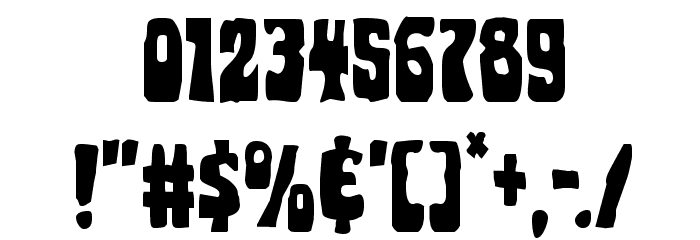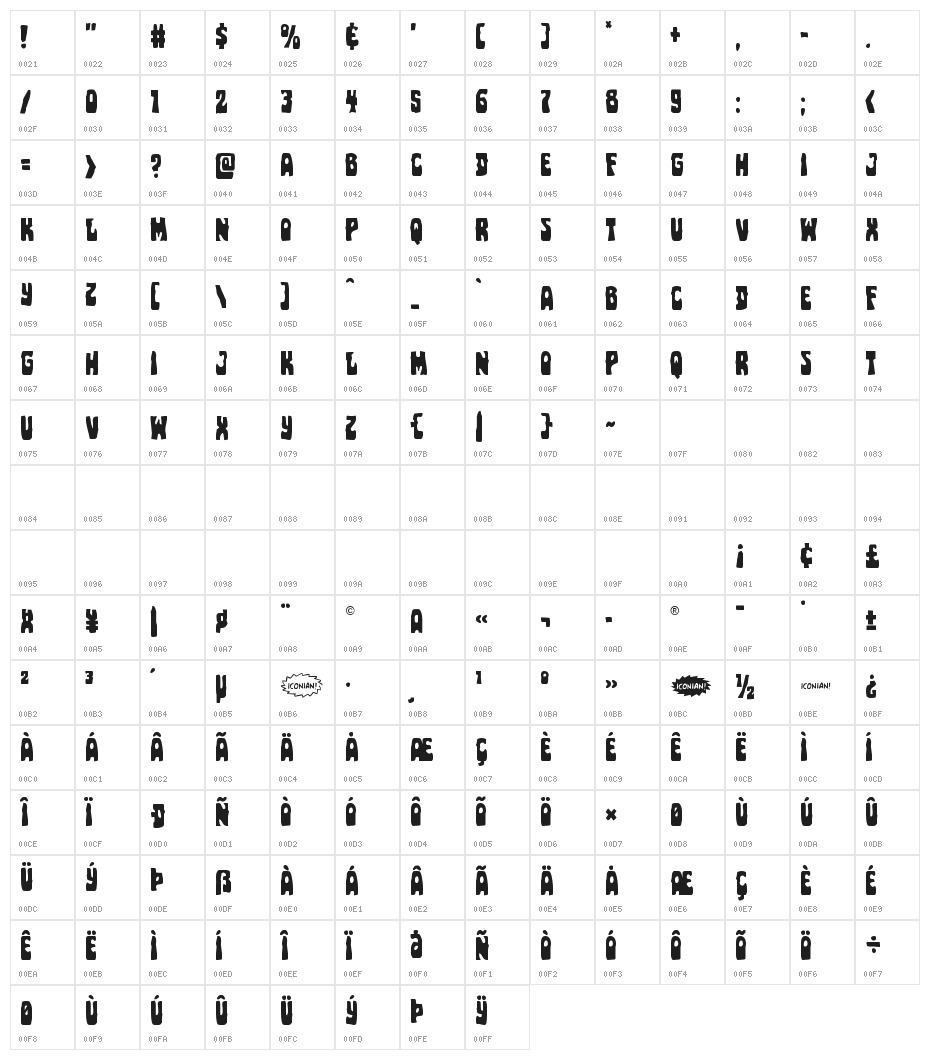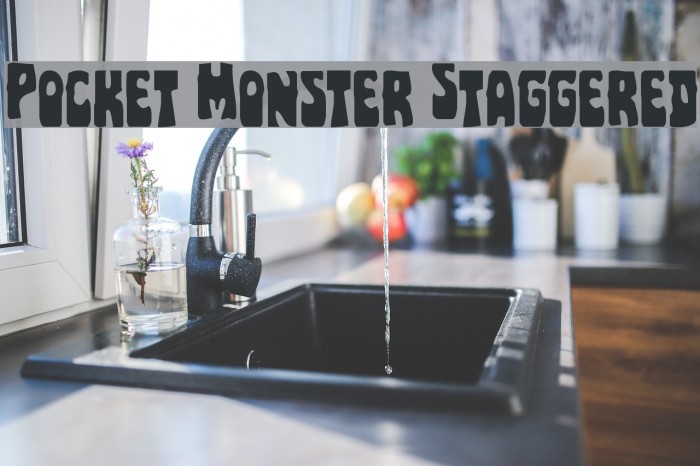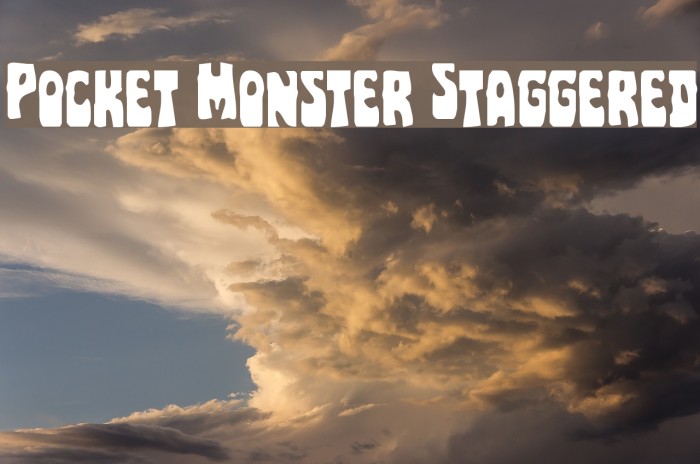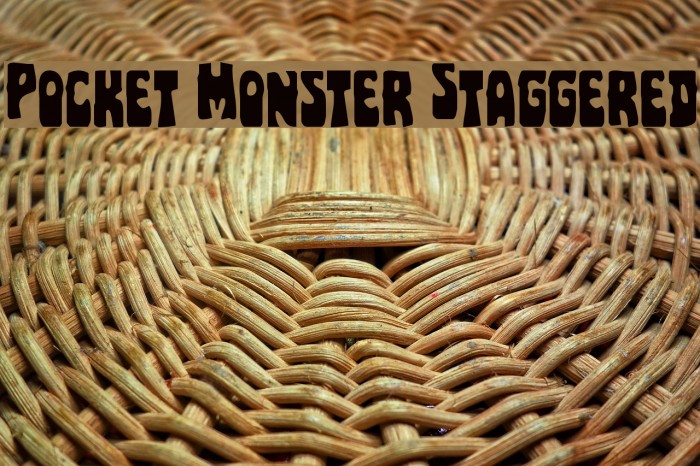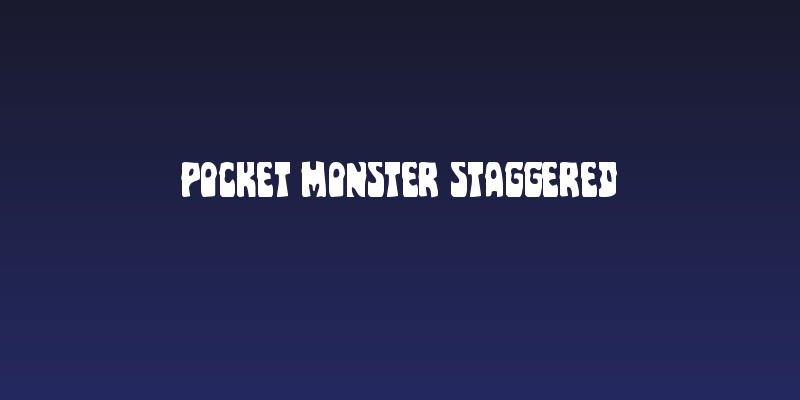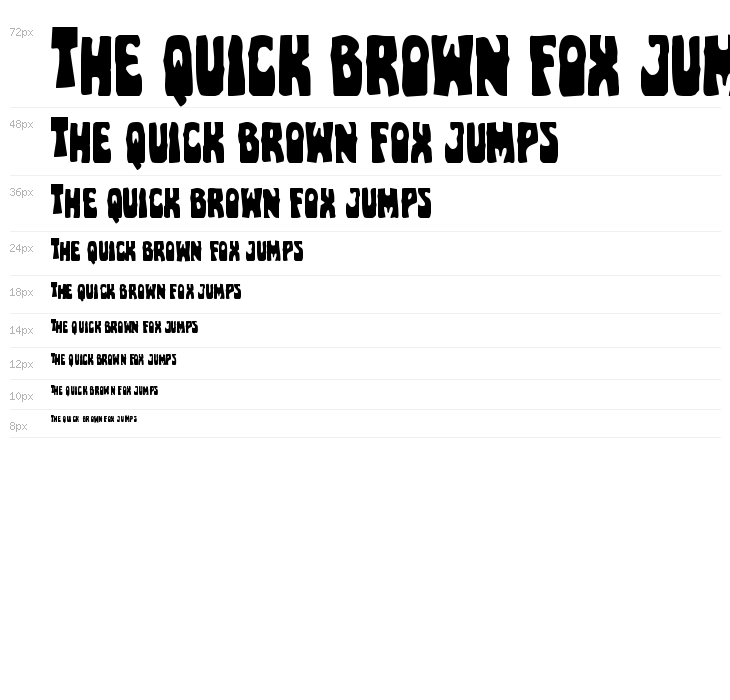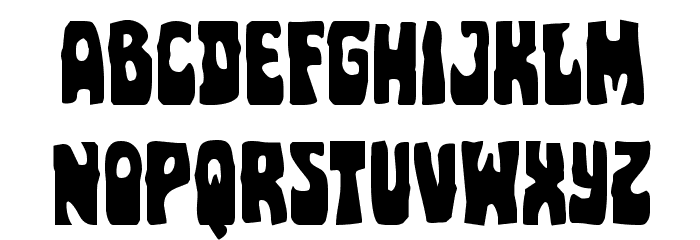
Pocket Monster Staggered Font
Pocket Monster Staggered Description
This font features a bold and playful design with a staggered, uneven appearance that gives it a dynamic and energetic feel. The characters are thick and chunky, with irregular edges that create a sense of movement and whimsy. The uppercase and lowercase letters maintain a consistent style, while the numbers and special characters complement the overall aesthetic. This font's unique style makes it stand out, offering a sense of fun and creativity.
| Overall Style | Playful, Energetic, Creative |
| Proposed Projects | Ideal for children's book covers, playful branding, video game titles, and creative posters. |